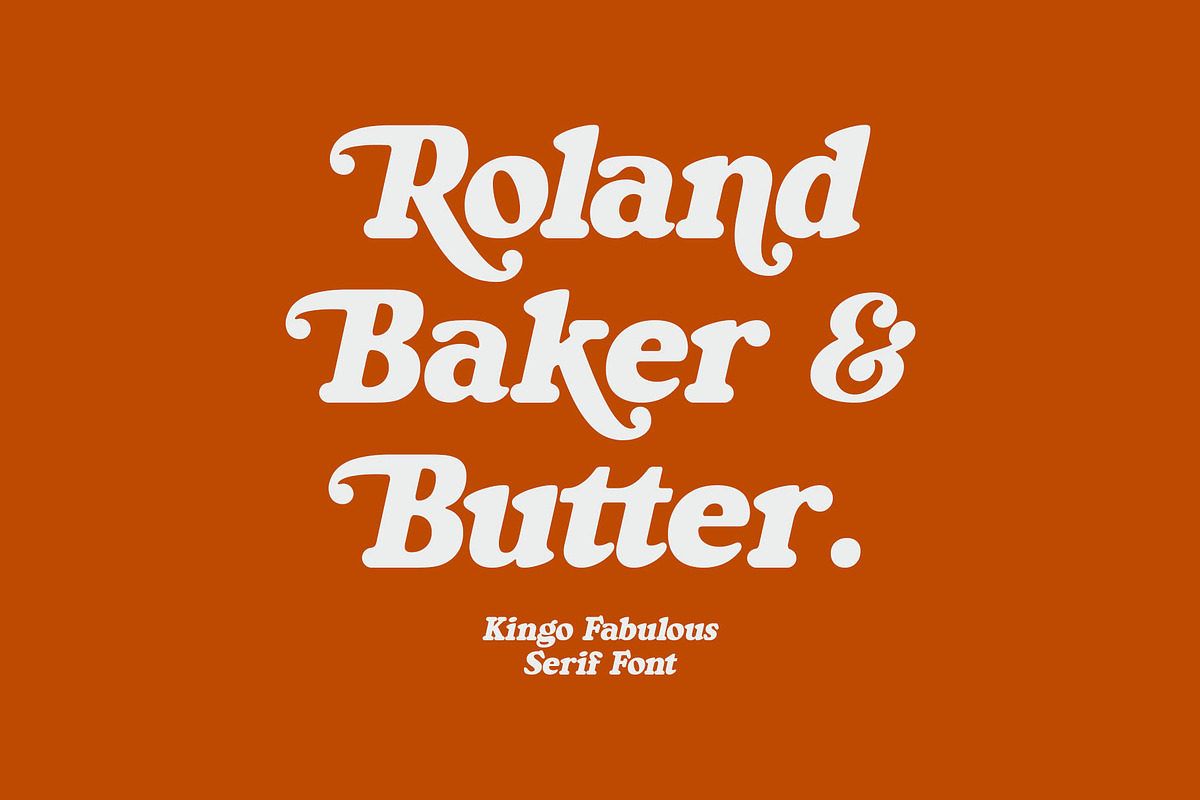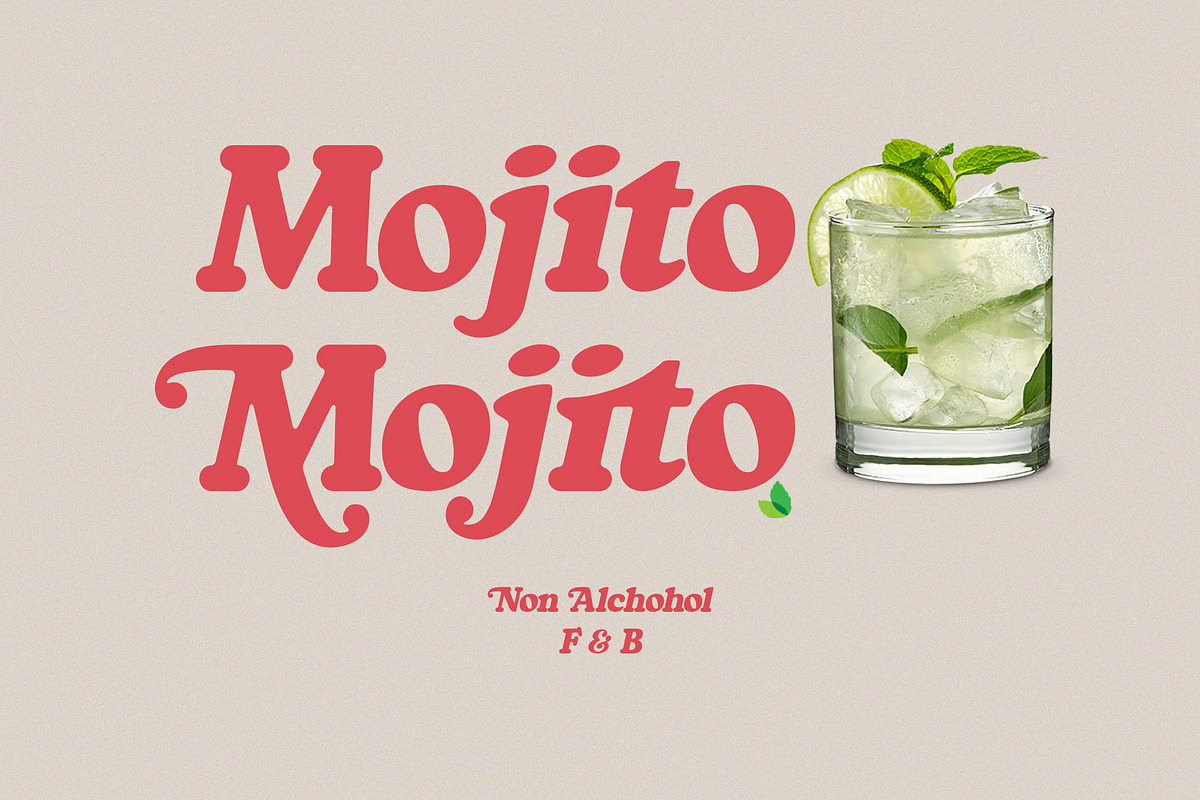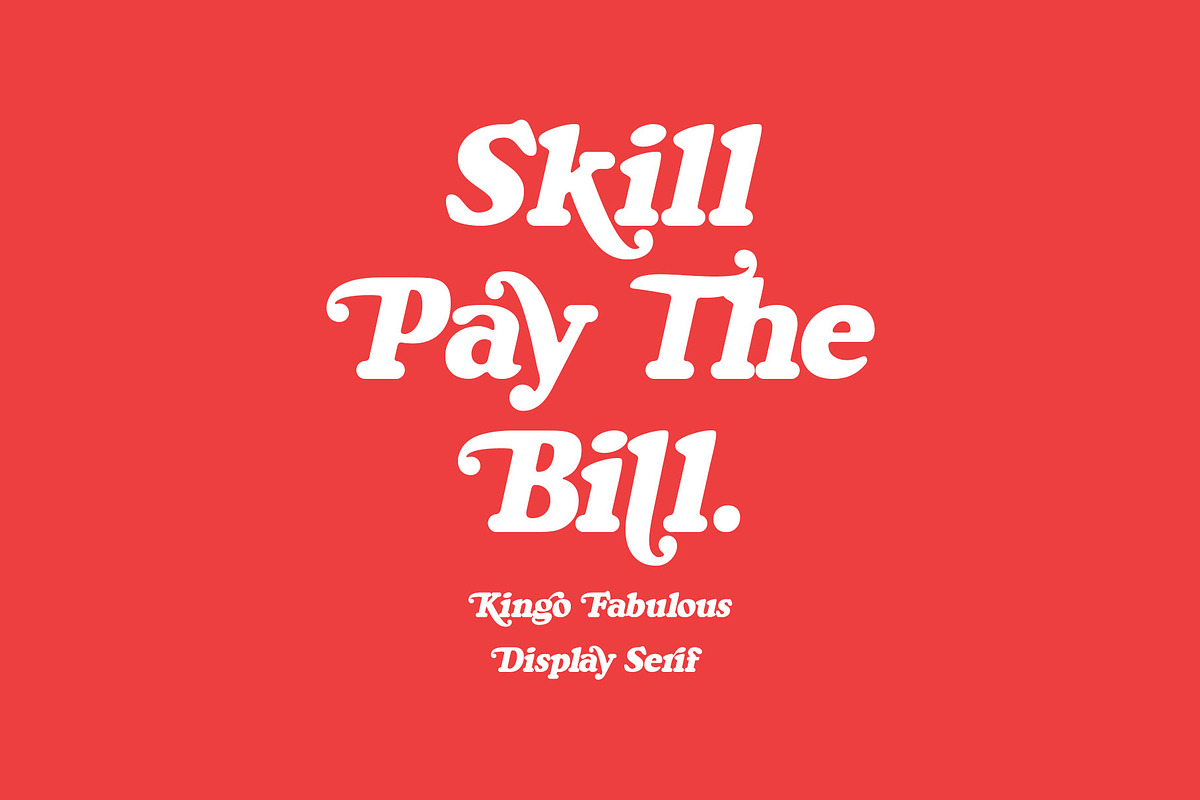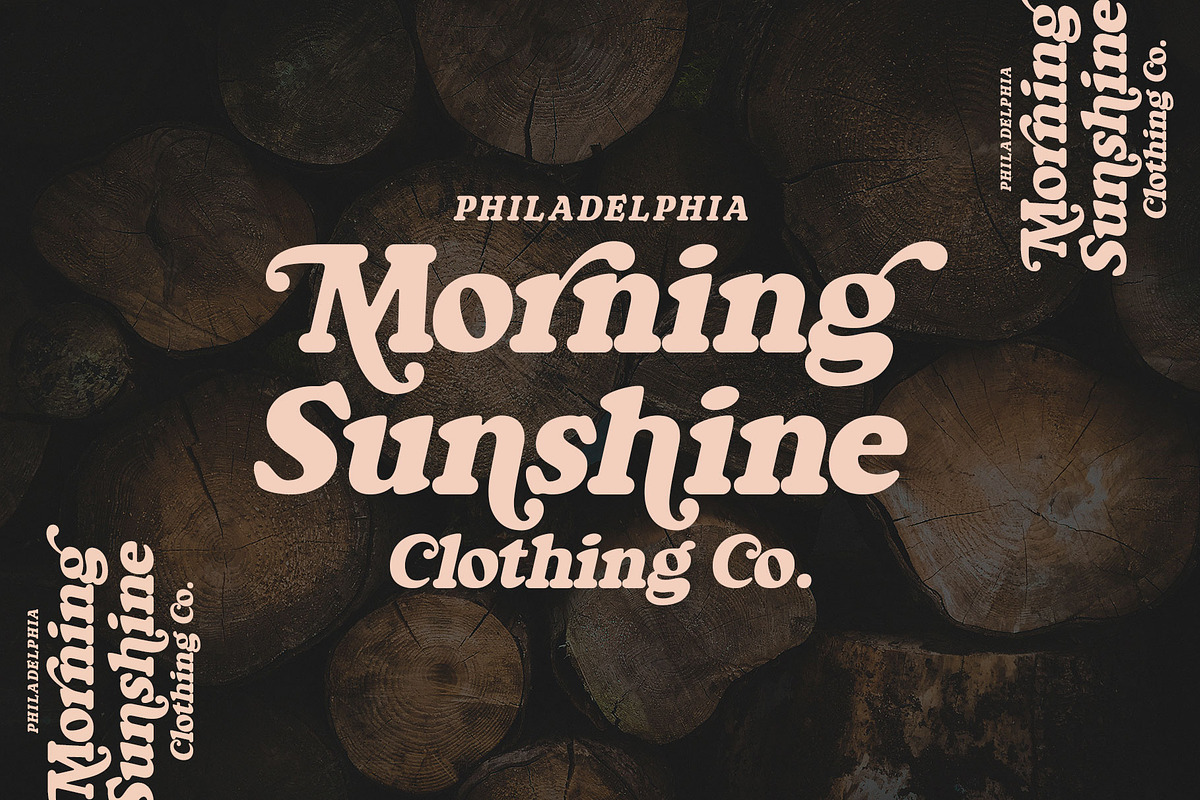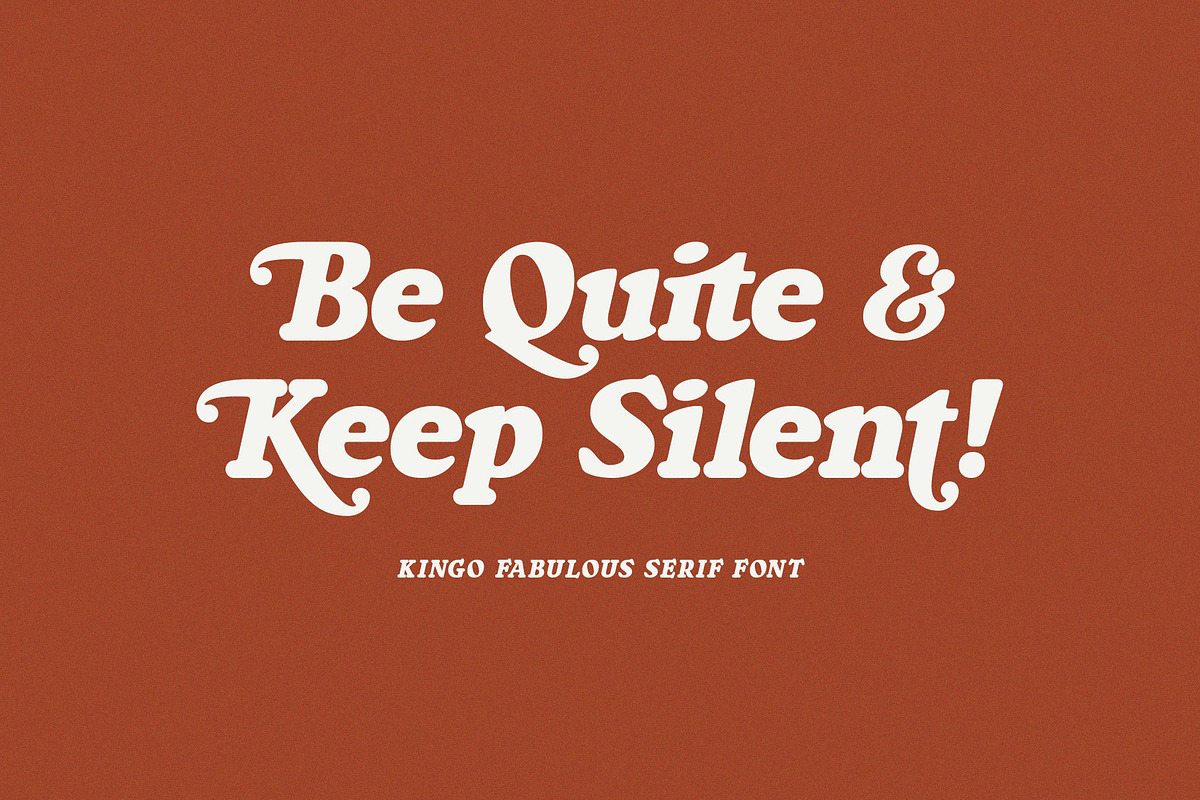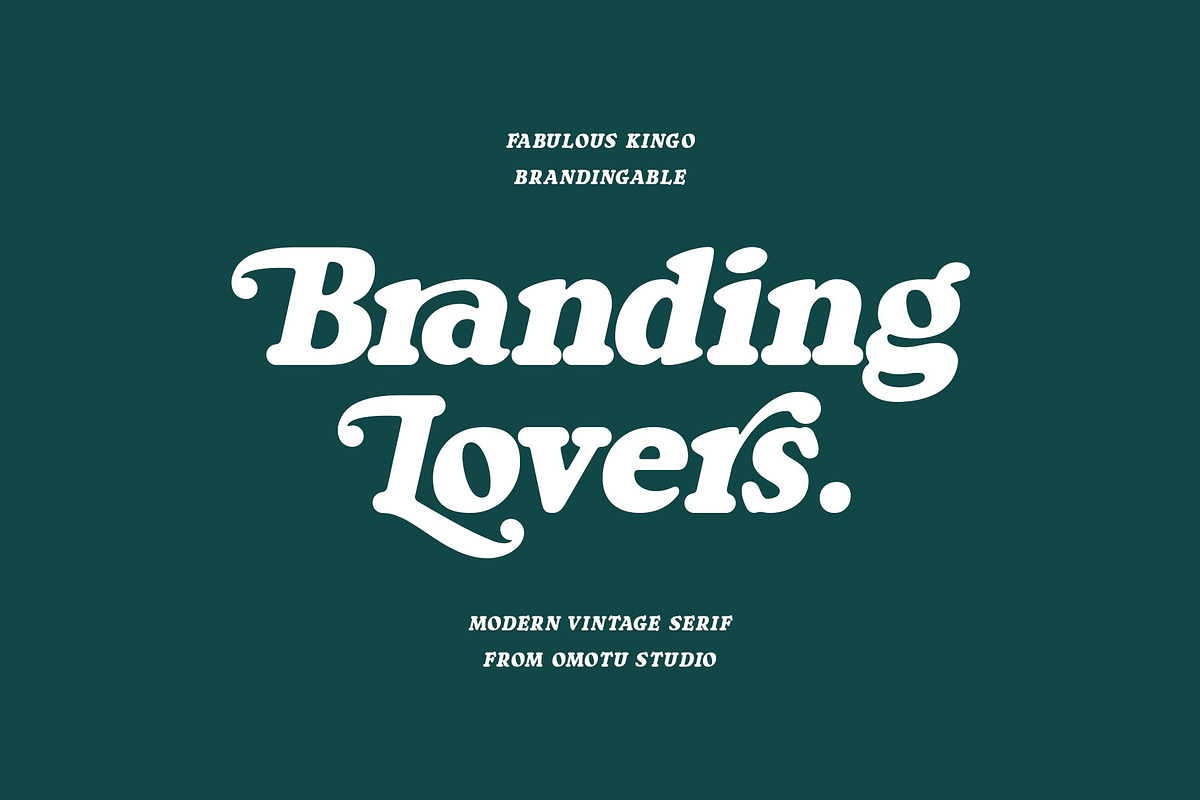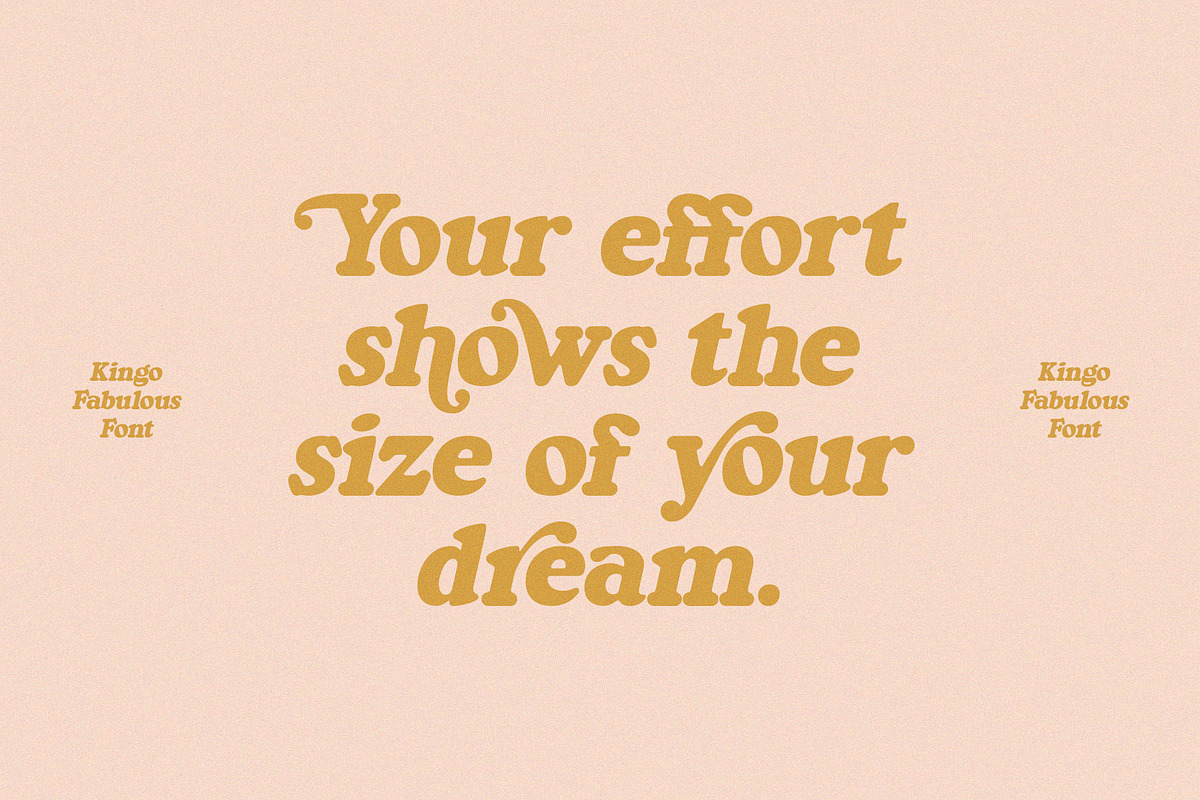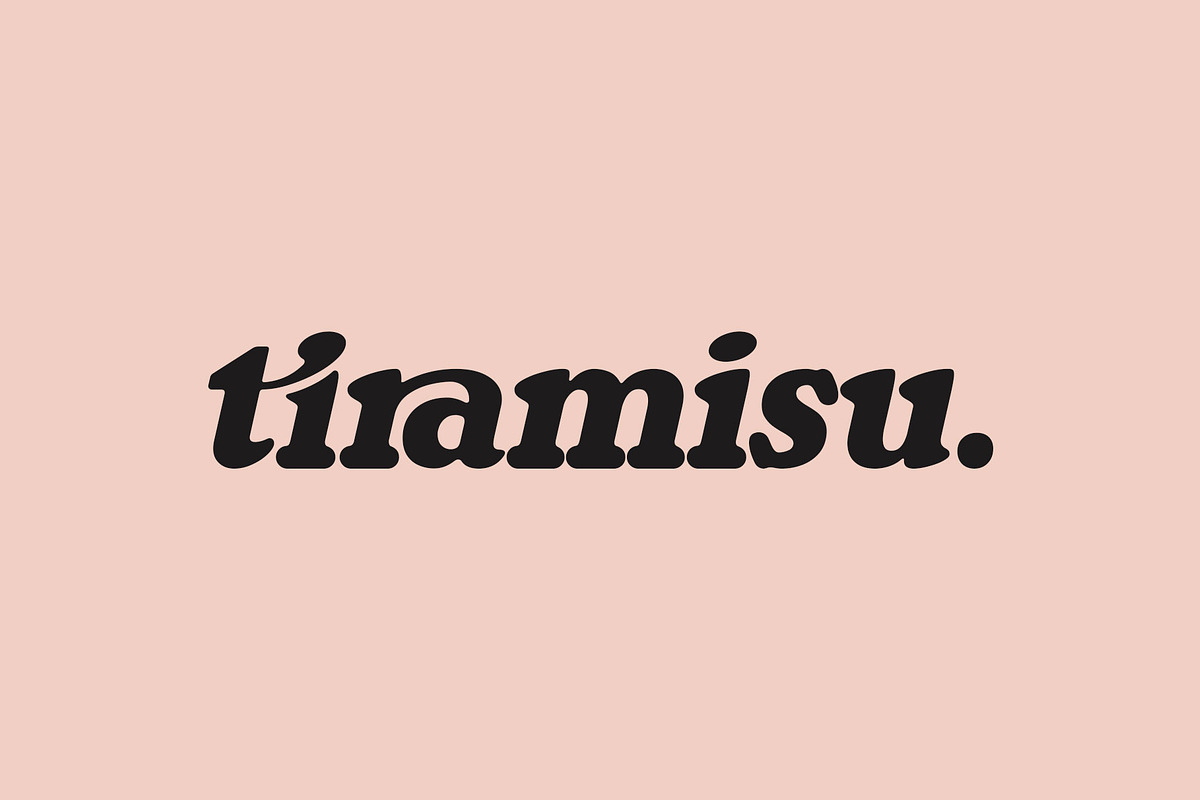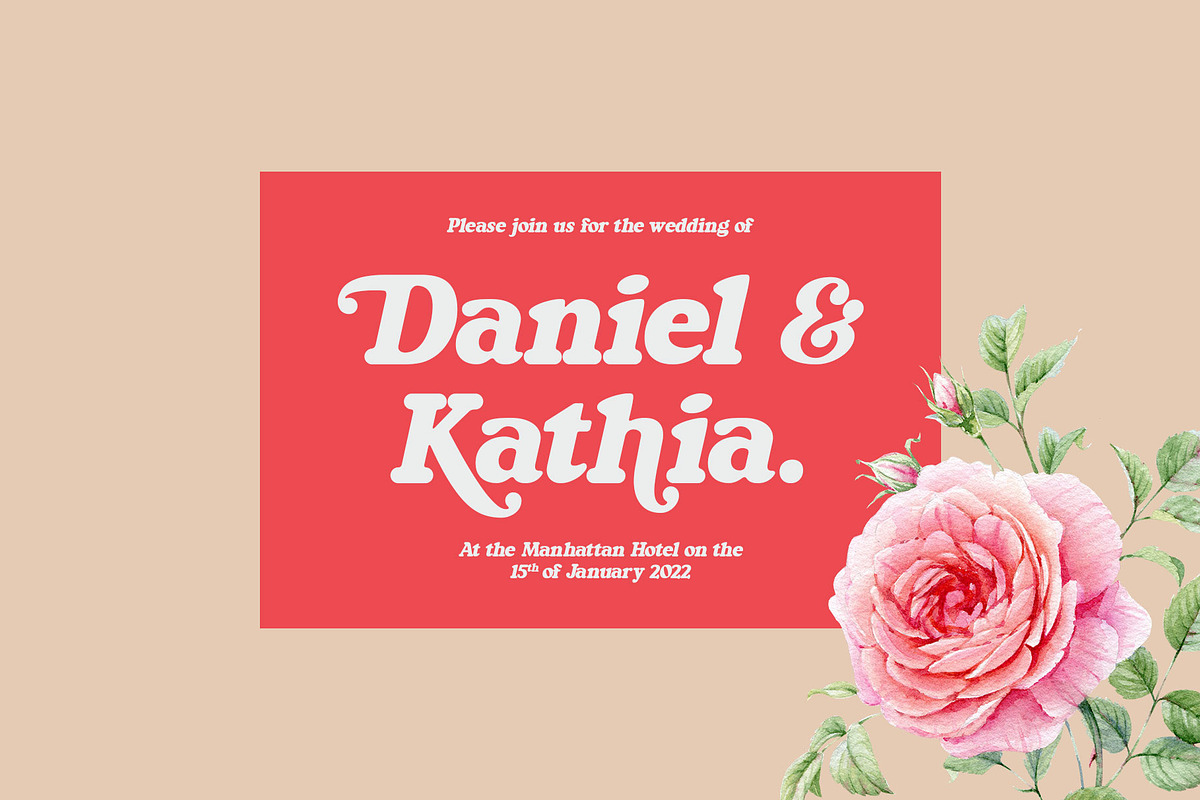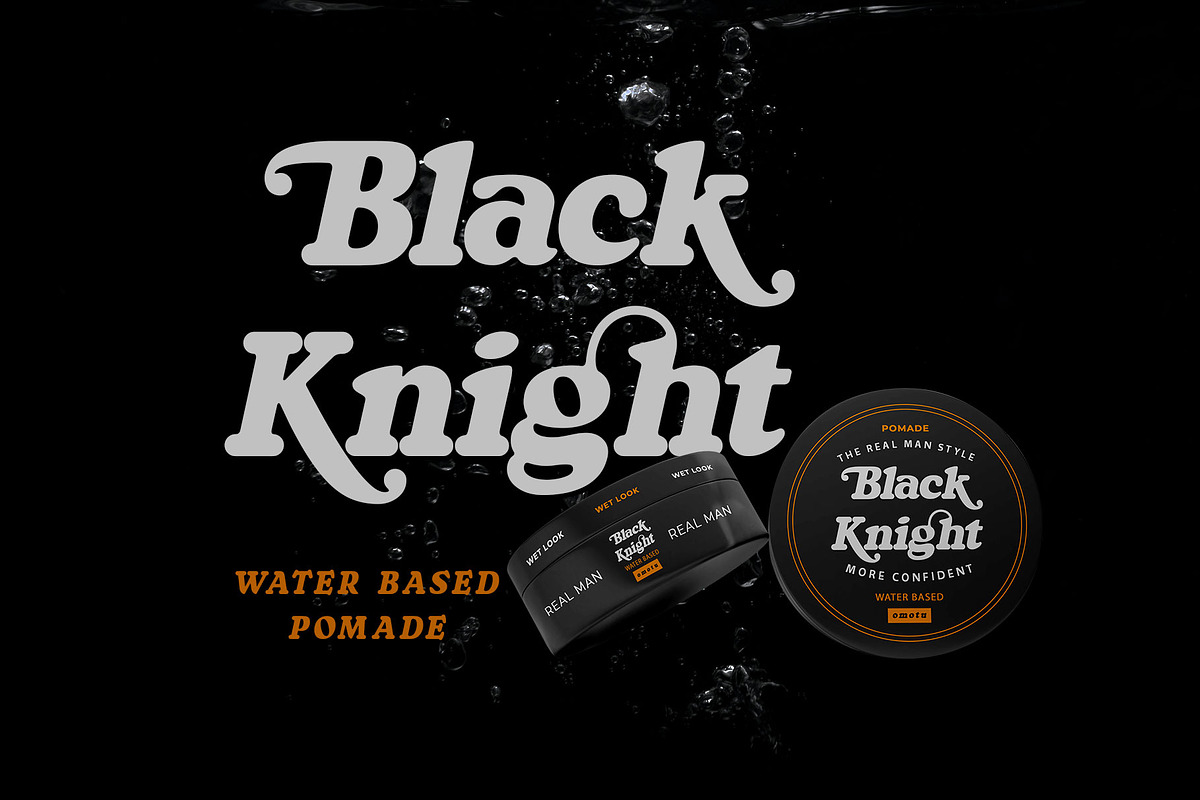
Kingo
Kingo is fabulous display serif font with retro look. Comes with stylish uppercase alternates and ligatures. Great for logotype, branding, packaging design, poster design, website/display, editorial, headline, advertising, and more.
- Features: Uppercase, lowercase, numerals, punctuations, alternates, contextual alternates, and ligatures